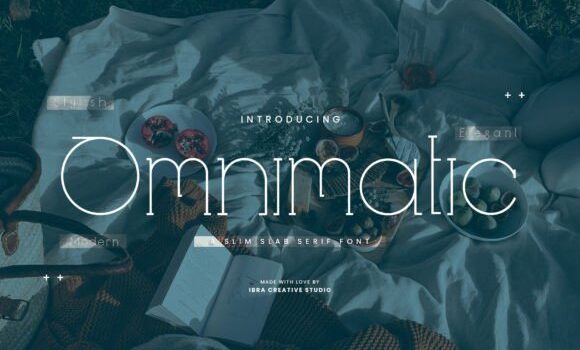
omnimatic
Omnimatic Font - Featured Image
Omnimatic Font – Free Download Introduction to Omnimatic Font Omnimatic is a sleek and modern slim slab serif font that effortlessly combines elements of sophistication and readability. 📸 Preview Gallery 6 images 📌 Product Name Omnimatic Font 👤 Author ibracreative